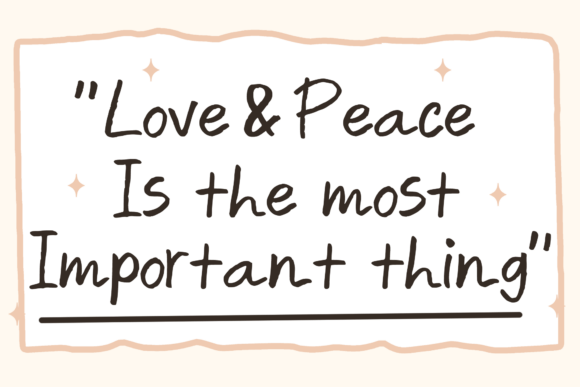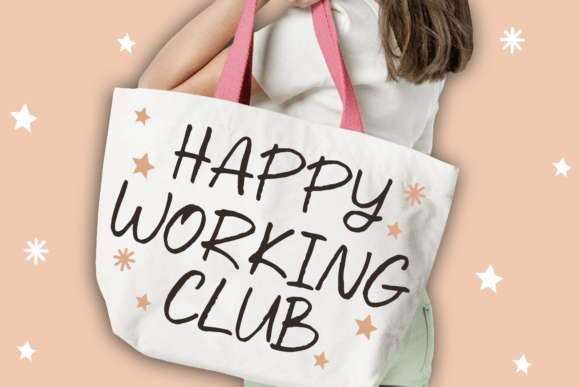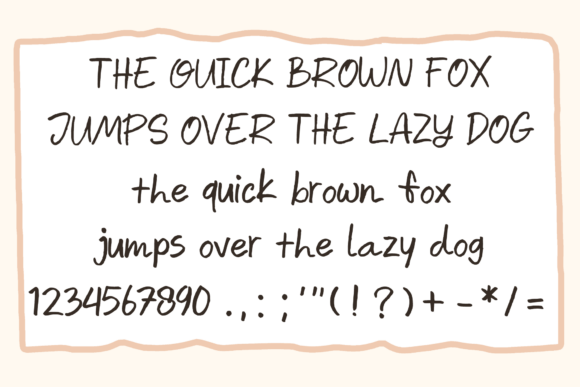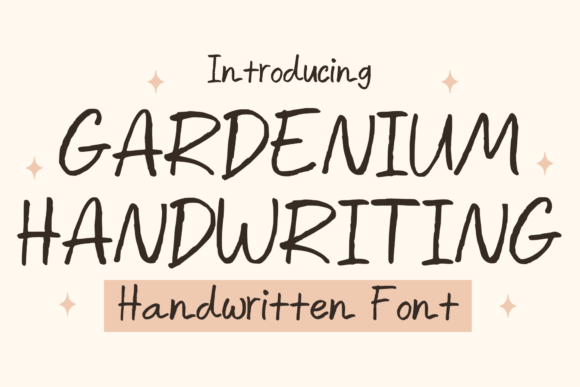
Gardenium Handwriting Font: Elevate Your Designs with Whimsy and Charm
Are you tired of using the same old fonts in your design projects? Do you want to add a touch of personality and whimsy to your creations? Look no further than Gardenium Handwriting, a beautifully crafted font that is sure to take your designs to new heights. In this article, we’ll explore the features and benefits of Gardenium Handwriting, and show you how it can be used to create stunning designs that stand out from the crowd.
What is Gardenium Handwriting?
Gardenium Handwriting is a hand-lettered font that is as spontaneous as it is beautiful. With its whimsical and spirited feel, this font is the perfect tool for designers who want to add a dash of cool to their creations. Whether you’re working on a logo, a magazine cover, or a t-shirt design, Gardenium Handwriting is the perfect choice. Its versatility knows no bounds, and it’s sure to become a favorite in your font collection.
The Features of Gardenium Handwriting
So, what makes Gardenium Handwriting so special? Here are just a few of its standout features:
• Whimsical and spontaneous feel: Gardenium Handwriting has a playful, hand-crafted feel that’s perfect for designs that need a bit of personality.
• Beautifully crafted letters: Each letter in the Gardenium Handwriting font is carefully crafted to ensure that it looks great on its own or in combination with other letters.
• Versatile: Gardenium Handwriting can be used for a wide range of design projects, from logos and decals to magazine covers and comics.
Using Gardenium Handwriting in Your Designs
So, how can you use Gardenium Handwriting in your designs? The possibilities are endless! Here are a few ideas to get you started:
• Decals and t-shirts: Add a touch of whimsy to your decals and t-shirts with Gardenium Handwriting. This font is perfect for creating fun and playful designs that will stand out.
• Logos: Create a unique and memorable logo with Gardenium Handwriting. This font is perfect for businesses that want to convey a sense of fun and approachability.
• Magazine and book covers: Use Gardenium Handwriting to create eye-catching magazine and book covers that will grab attention.
• Comics and cartoon illustrations: Add a touch of personality to your comics and cartoon illustrations with Gardenium Handwriting. This font is perfect for creating fun and playful text that will bring your characters to life.
Why Choose Gardenium Handwriting?
So, why should you choose Gardenium Handwriting for your design projects? Here are just a few reasons:
• Unique and distinctive: Gardenium Handwriting is a one-of-a-kind font that will set your designs apart from the crowd.
• High-quality: Gardenium Handwriting is a high-quality font that’s been carefully crafted to ensure that it looks great in any design.
In conclusion, Gardenium Handwriting is a beautifully crafted font that’s perfect for designers who want to add a touch of whimsy and personality to their creations. With its spontaneous and spirited feel, this font is sure to take your designs to new heights. Whether you’re working on a logo, a magazine cover, or a t-shirt design, Gardenium Handwriting is the perfect choice. So why wait? Download Gardenium Handwriting today and start creating stunning designs that stand out from the crowd!
Key Takeaways
• Gardenium Handwriting is a hand-lettered font with a whimsical and spontaneous feel.
• This font is versatile and can be used for a wide range of design projects.
• Gardenium Handwriting is perfect for designers who want to add a touch of personality and whimsy to their creations.
• This font is easy to use and of high-quality.